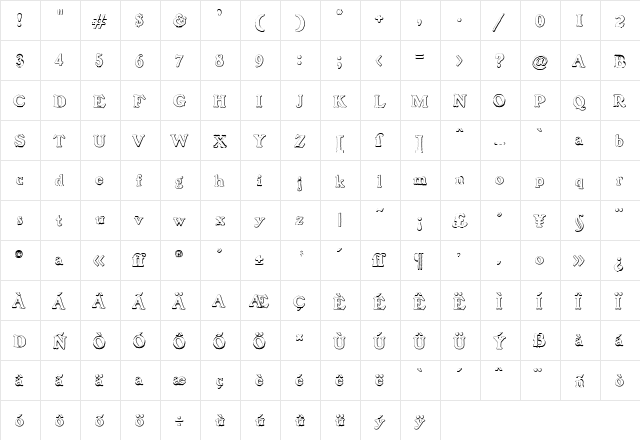
BenjaminFranklin Beveled Regular
Design Context for BenjaminFranklin Beveled Typeface
BenjaminFranklin Beveled is a composed and adaptable typeface that performs quietly and consistently across a wide range of design contexts.